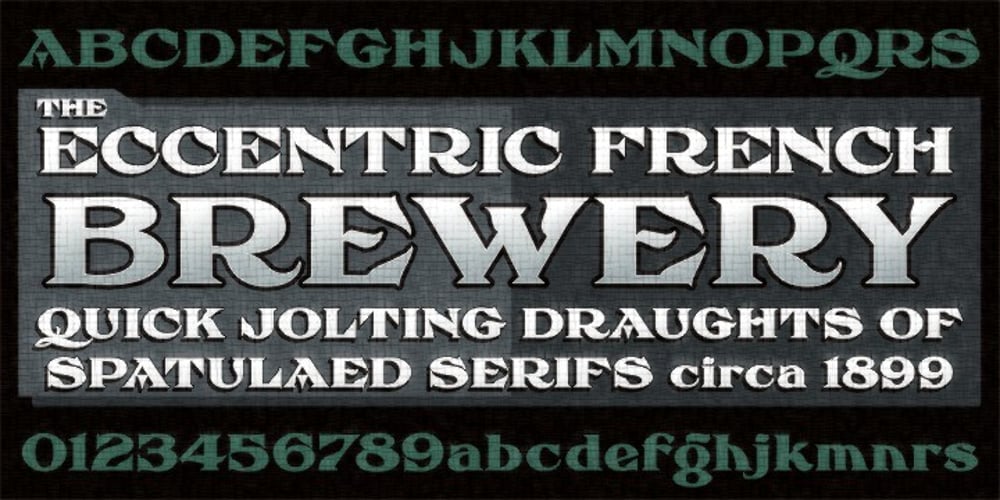
FHA Eccentric French Font Family was designed by Frank Atkinson, Frank Smith, Michael Gene Adkins and published by The Fontry. FHA Eccentric French contains 1 styles and family package options. The curves are vintage and the serifs are big. They’re so big that for years I never had the courage to tackle this intimidating font. But when fellow signmaker Frank Smith laid the groundwork for this intriguing typeface by Frank H. Atkinson, I couldn’t pass on the opportunity to take it from paper to keyboard. After all, at over 100 years old, I felt this alphabet had never been given a proper, digital treatment. So how did this face survive the last century? Well, for those who don’t know the history, it survived in Atkinson’s ubiquitous book, Sign Painting, published first in 1908, the generational standard for anyone interested in sign-related type design. The layouts and lettering treatments in this book have influenced countless designers for more than a hundred years, but most haunting to me was this strange face with the big serifs. Well, I’m haunted no more. The work is done, the kerning is complete, and nothing but a mouse-click separates a very old idea from the modern world. It’s wide, it’s big, and with those crazy serifs, it is definitely eccentric-!!!